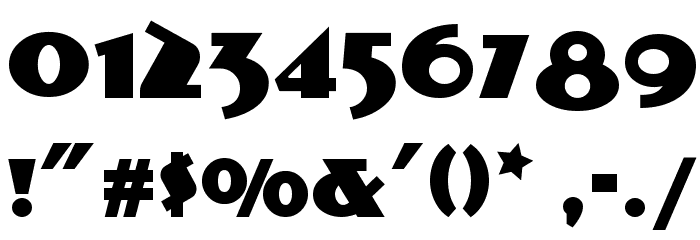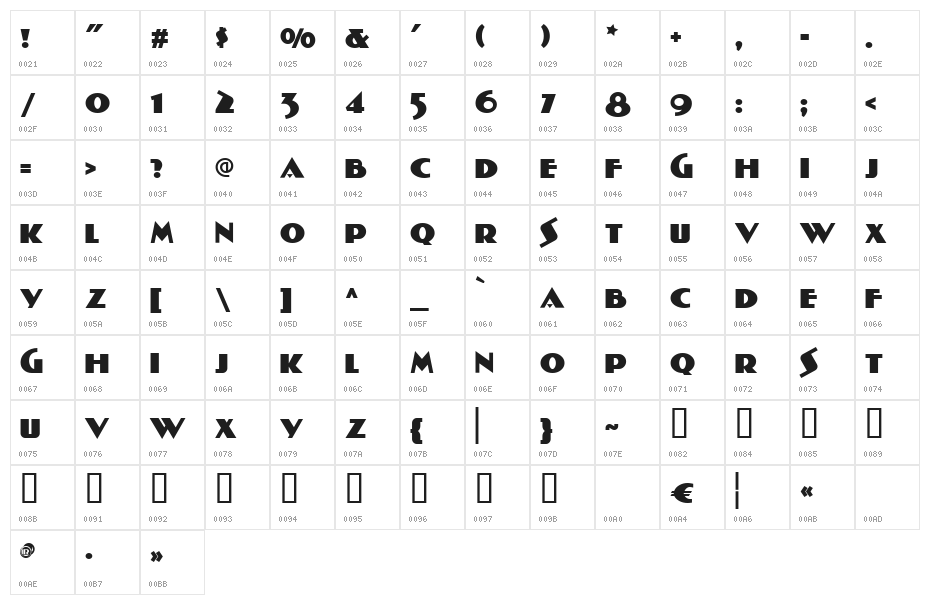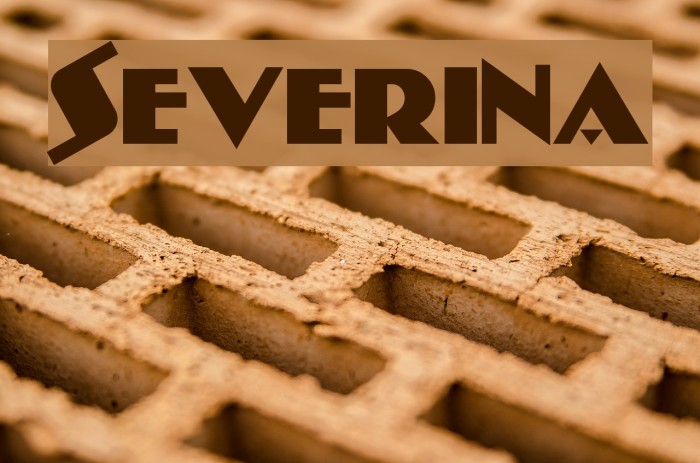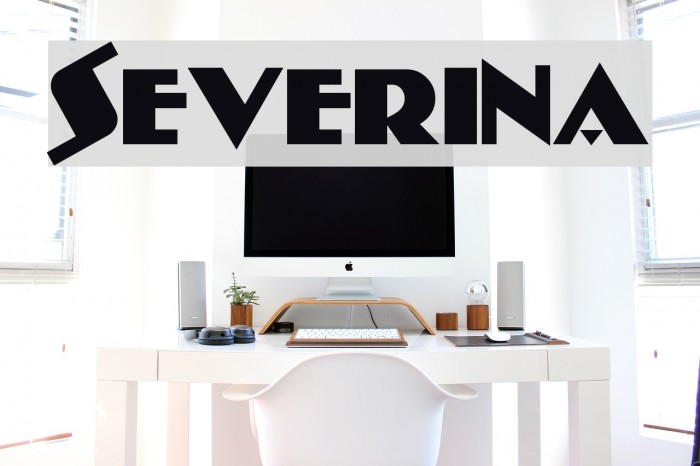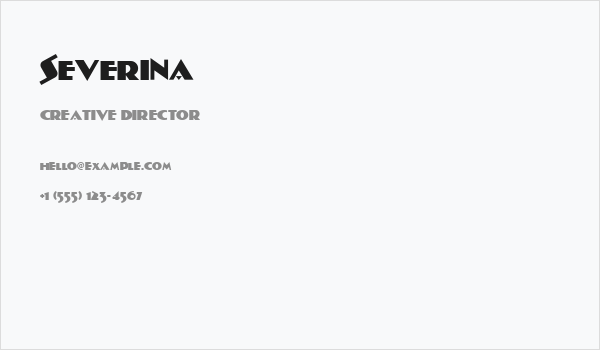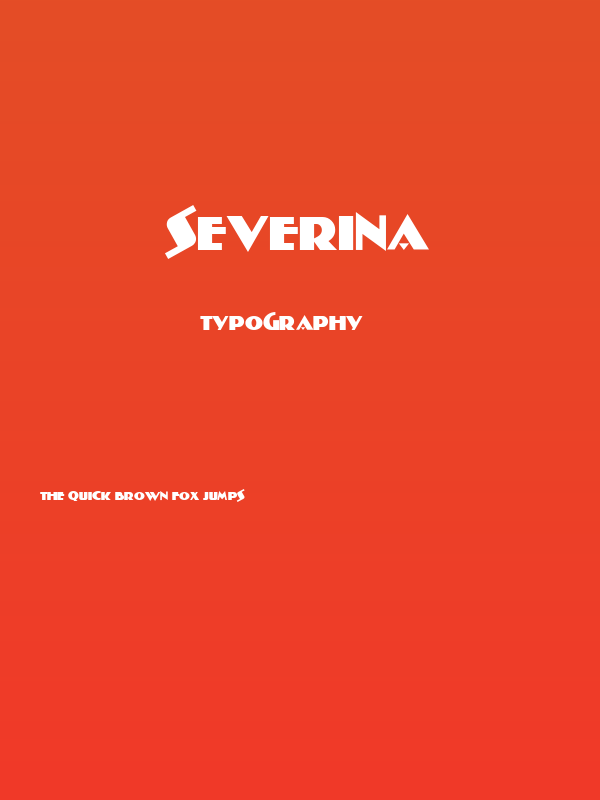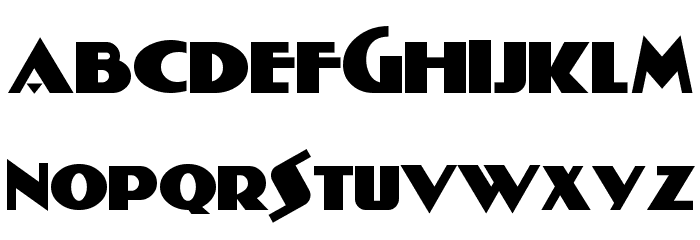
Severina Font
Severina Description
This font features a bold and geometric design with sharp angles and clean lines. The uppercase letters are particularly striking, with a strong presence and a modern aesthetic. The lowercase letters maintain the same boldness, ensuring consistency across the typeface. Numbers are equally bold, making them stand out for impactful designs. The special characters are designed to match the overall style, providing a cohesive look. The font's unique style makes it suitable for attention-grabbing headlines and logos, where a modern and assertive appearance is desired.